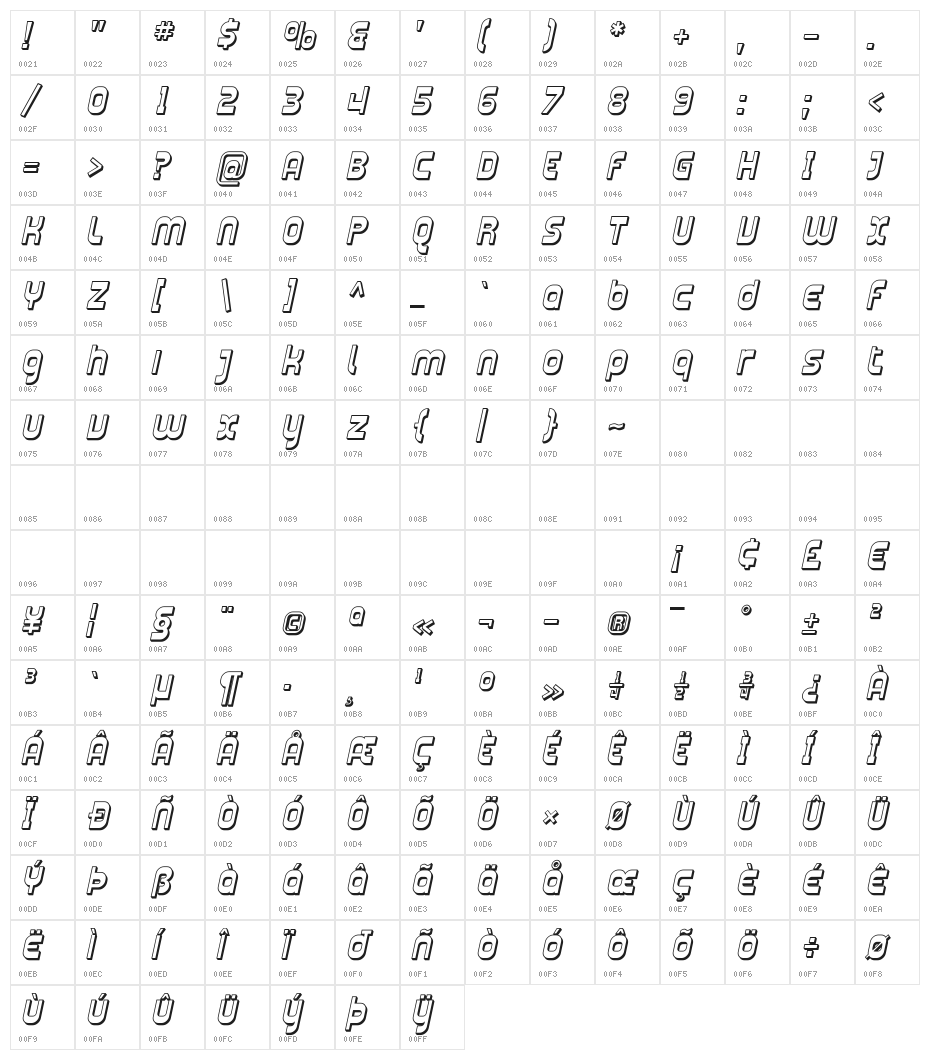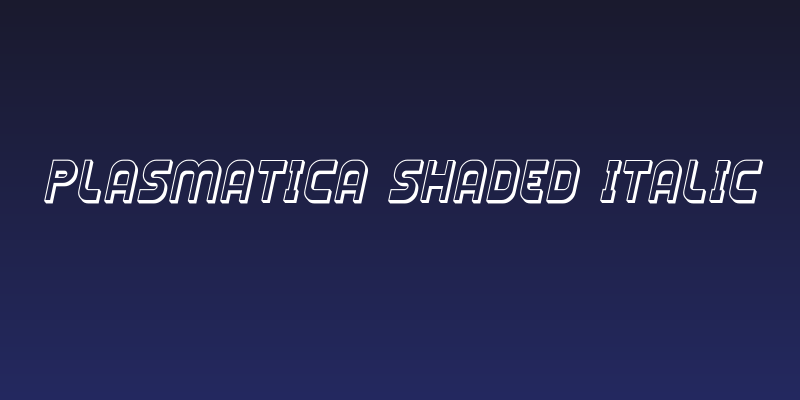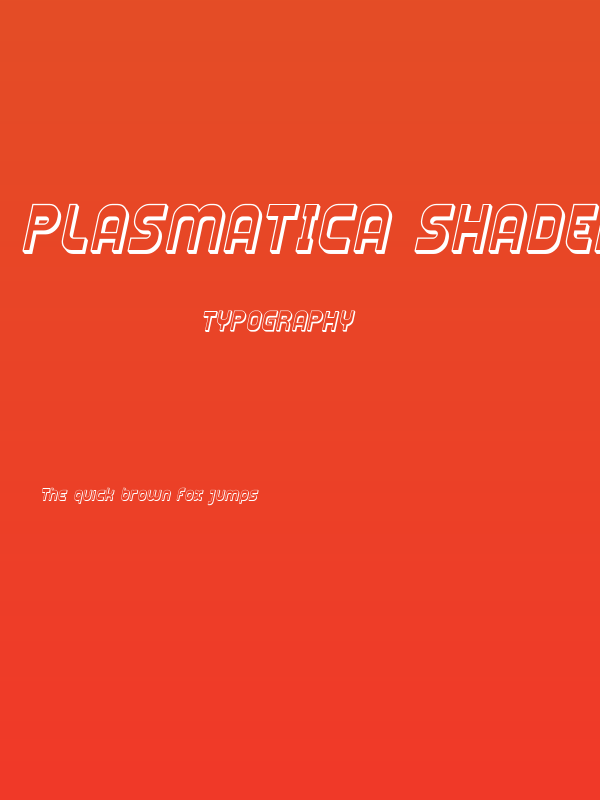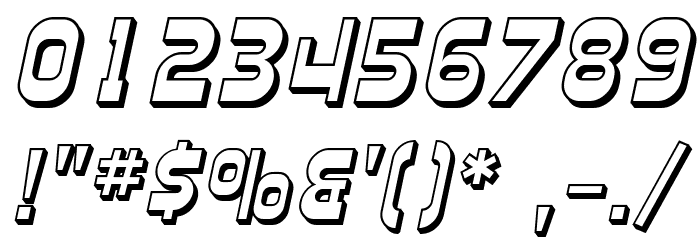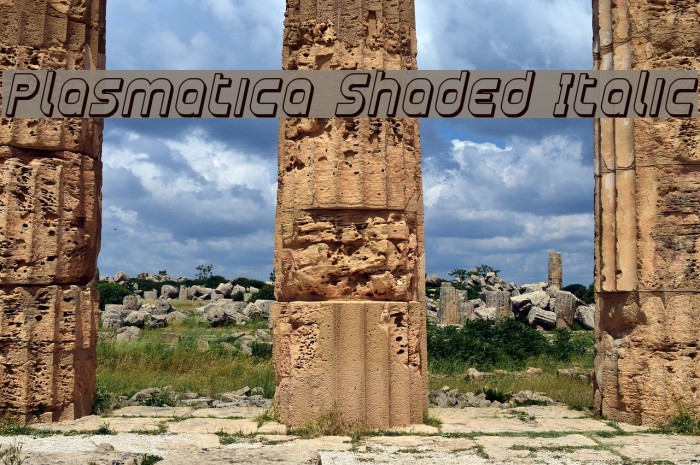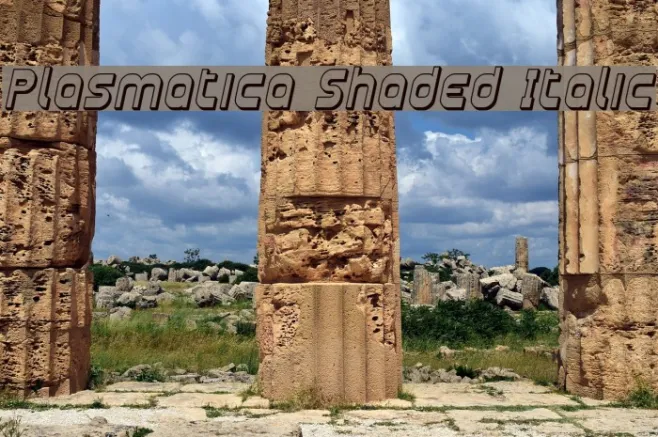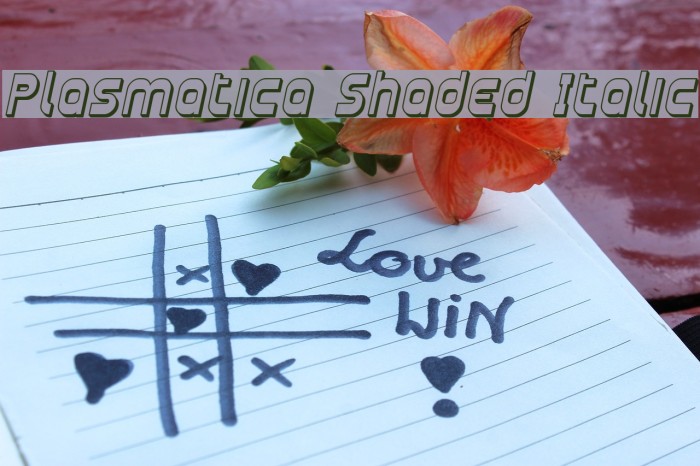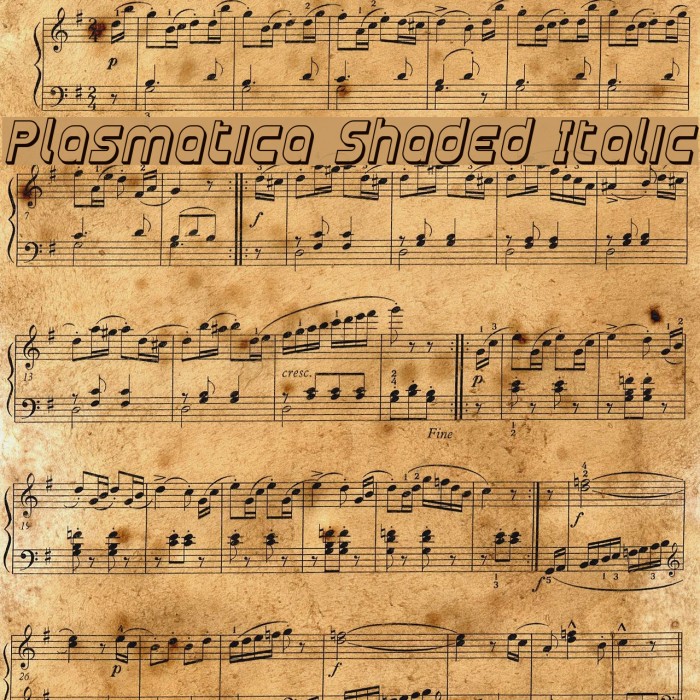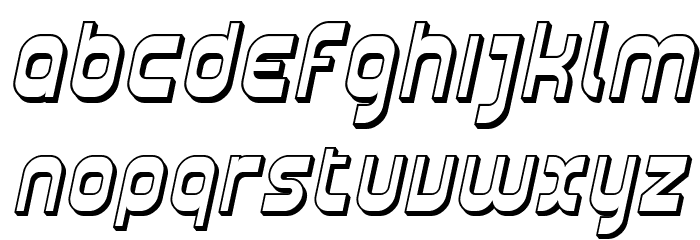
Plasmatica Shaded Italic Font
Plasmatica Shaded Italic Description
This font features a bold, futuristic design with a shaded, italicized style. The characters are outlined, giving them a three-dimensional appearance that adds depth and interest. The uppercase and lowercase letters maintain a consistent geometric form, while the numerals and special characters complement the overall aesthetic. The font's unique shading effect creates a sense of motion and dynamism, making it ideal for projects that require a modern and eye-catching look.
| Proposed Projects | Ideal for sci-fi themed designs, video game graphics, technology branding, and modern posters. |